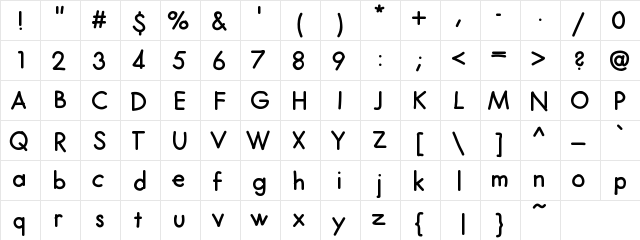
Complete FuturaHand Medium glyph index. Displaying only characters natively supported by FuturaHand Medium font.
FuturaHand has a distinctly futuristic character, with geometric precision and clean angles that feel at home in technology, gaming, and sci-fi contexts.